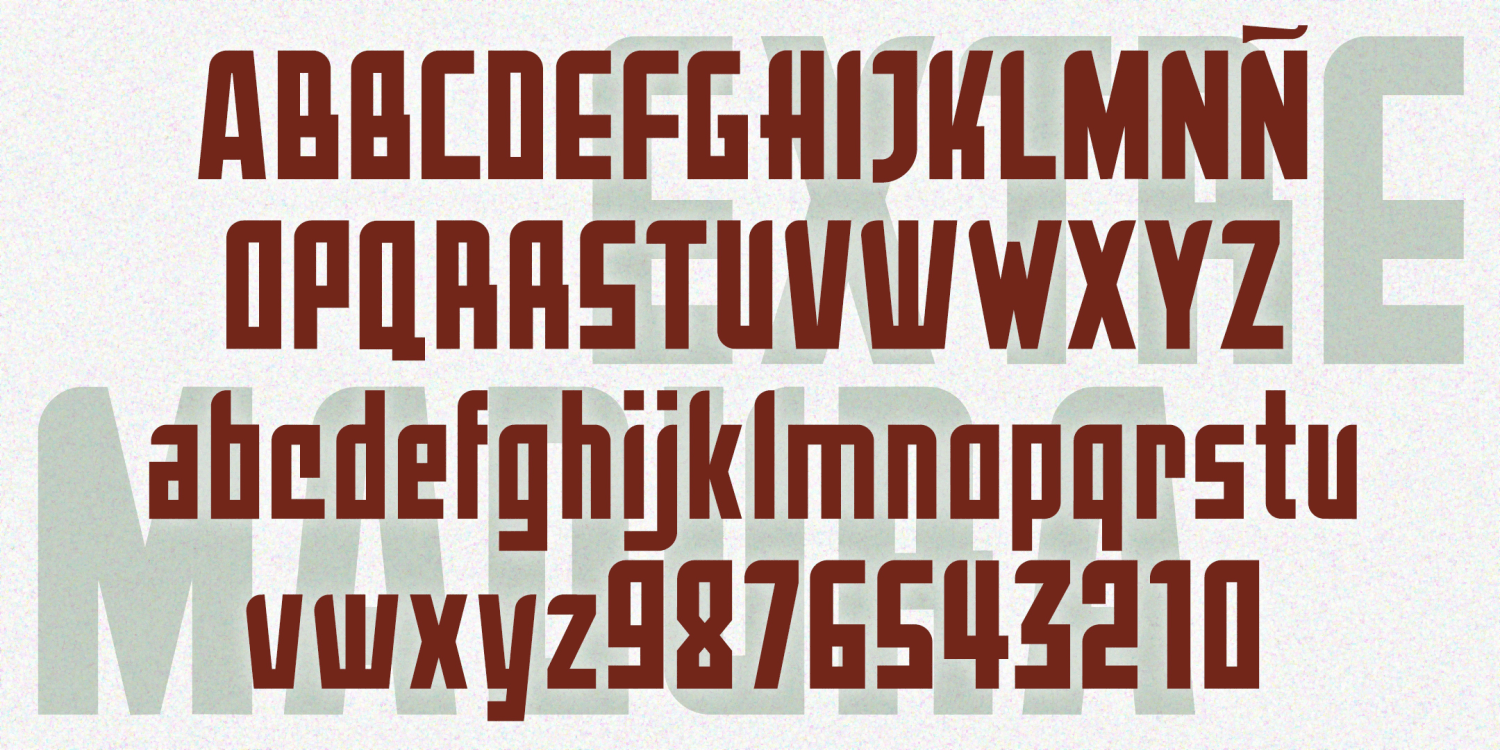
Extremadura
Extremadura is a bold geometric font. Straight lines and minimal curves give it a distinctive style. Extremadura was inspired by an example of vintage Art Deco lettering called Aragón; there are many fonts with that name so I picked a different region of Spain.